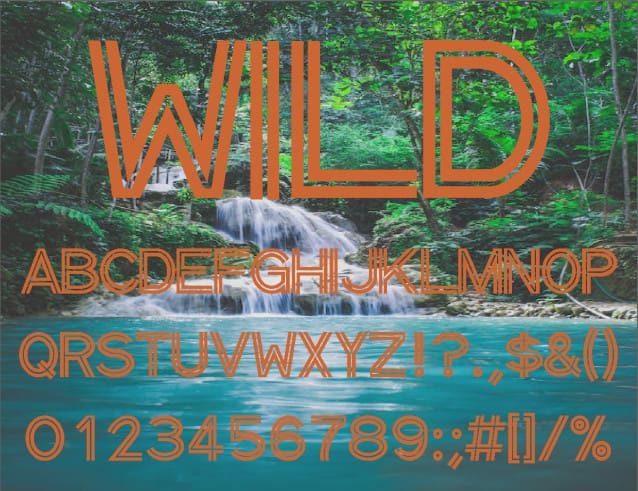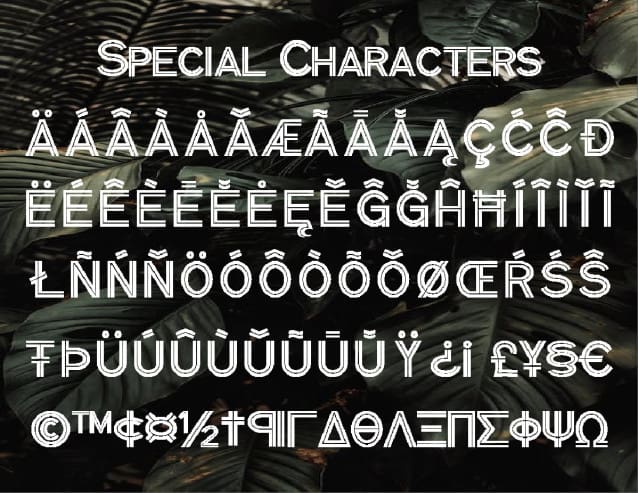
Wild Display Font, is a sans-serif font with a interesting look. It would be a perfect choice to design posters, affiches, logos, t-shirt and magazine prints, eye-pleasing typographic designs and more.
| Classification: | Display Fonts, Sans Serif Fonts, Techno / Futuristic Fonts |